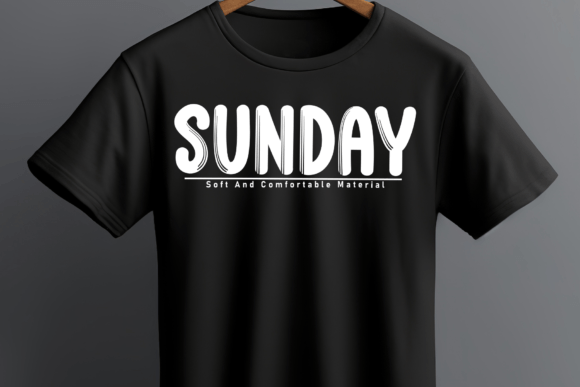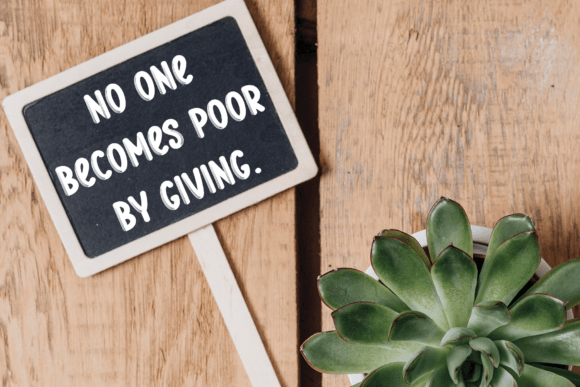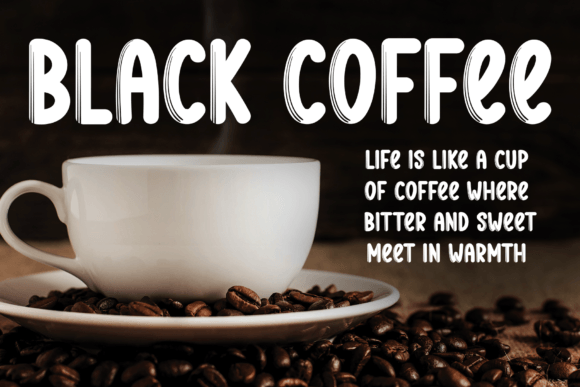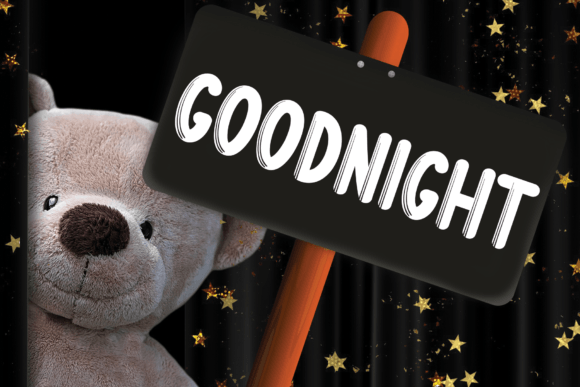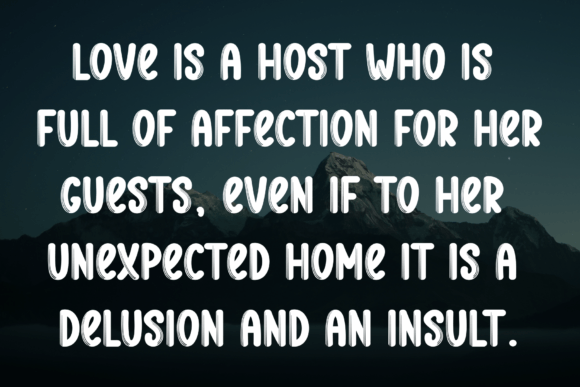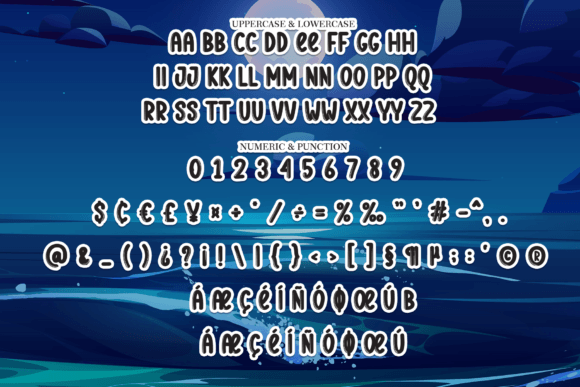
Introducing the Beautiful Night Font: Elevate Your Designs with Elegance
Are you a designer or crafter looking for a font that exudes elegance and sophistication? Look no further than the Beautiful Night Font. This stunning font is perfect for a variety of projects, from wall displays and wedding invitations to social media post logos, advertisements, and more. With its tasteful handwriting style, the Beautiful Night Font is sure to elevate your designs and leave a lasting impression.
The Latest Style Letters for Your Creative Projects
The Beautiful Night Font features the latest style letters that are perfect for a wide range of creative projects. Whether you’re working on a wedding invitation, a product label, or a social media post, this font is sure to add a touch of elegance and sophistication. The font’s beautiful handwriting style is perfect for designers and crafters who want to add a personal touch to their work.
The Beautiful Night Font is also encoded with PUA characters, which means you can access it completely without additional design software. This makes it easy to use and incorporate into your projects.
The Beautiful Night Font is versatile and can be used for a wide range of projects, including:
- Wall displays
- Wedding invitations
- Social media post logos
- Advertisements
- Product packaging
- Product designs
- Labels
- Photography
- Watermarks
- Invitations
- Stationery
Whether you’re a professional designer or a crafter, this font is perfect for anyone looking to add a touch of elegance and sophistication to their work.
Why Choose the Beautiful Night Font?
There are many reasons why the Beautiful Night Font stands out from other fonts. Here are just a few:
- Elegant handwriting style: The Beautiful Night Font features a beautiful, elegant handwriting style that’s perfect for a wide range of projects.
- Versatility: This font can be used for a variety of projects, from wedding invitations to product packaging.
- PUA character encoding: The font is encoded with PUA characters, making it easy to access and use without additional design software.
If you’re looking for a font that exudes elegance and sophistication, look no further than the Beautiful Night Font. With its tasteful handwriting style, versatility, and ease of use, this font is perfect for designers and crafters who want to elevate their designs and leave a lasting impression. Whether you’re working on a wedding invitation, a product label, or a social media post, the Beautiful Night Font is sure to add a touch of elegance and sophistication to your work.